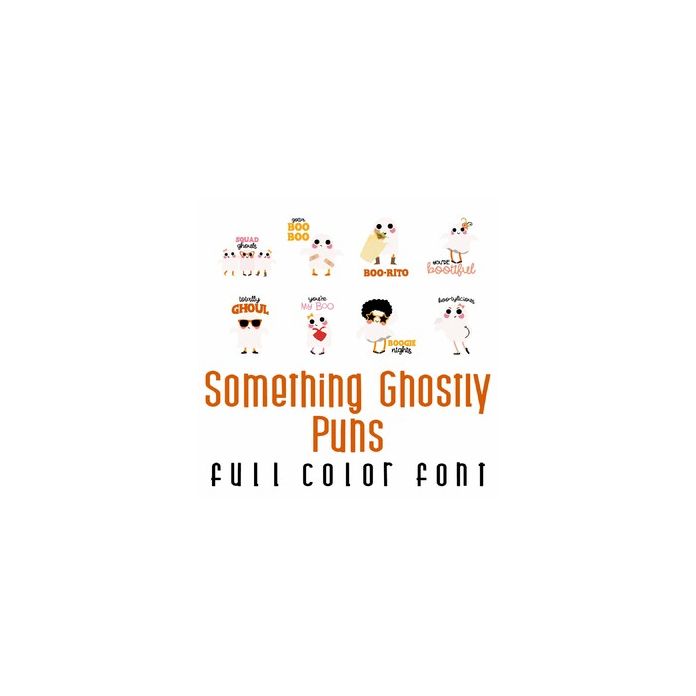
This adorable full color doodlebat font features the cutest ghostly puns. Perfect for Halloween, cards, crafts, gifts, decor, scrap book pages, planner stickers and more!